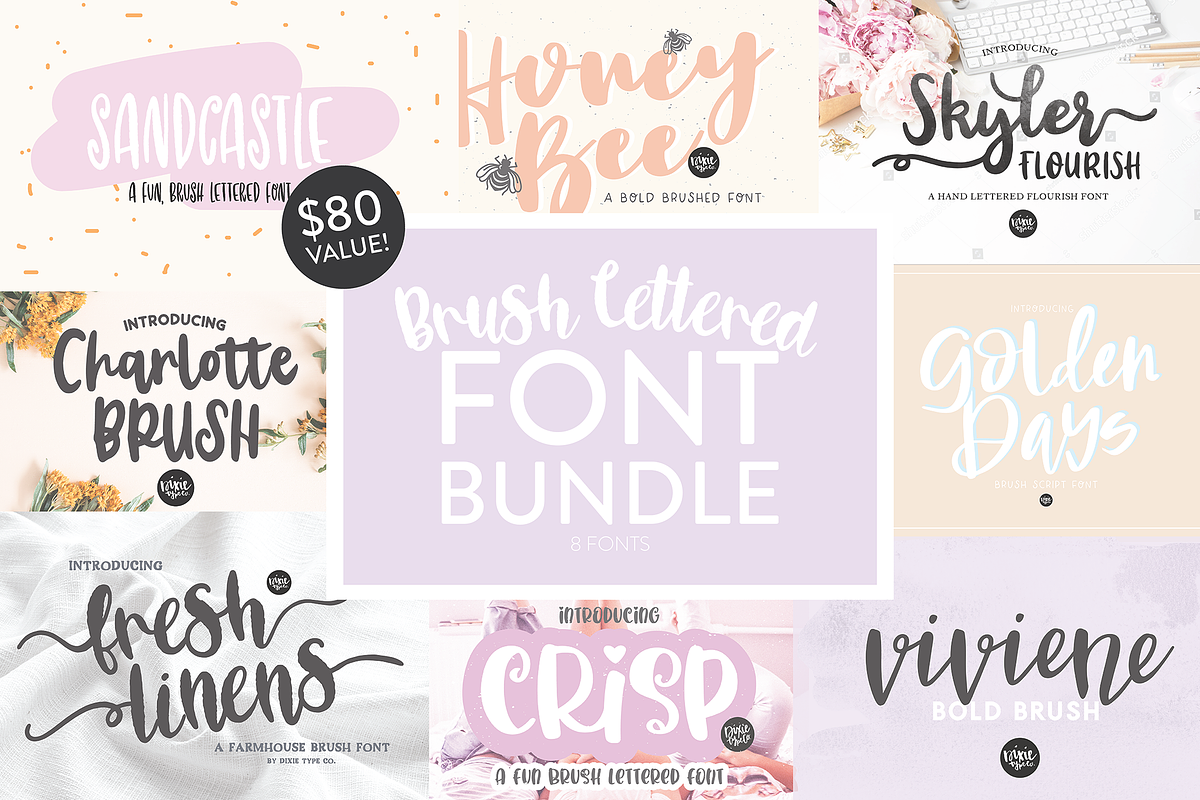
Brush Lettered Font Bundle Free Download is a versatile collection of hand-brushed typefaces that bring energy, texture, and personality to your designs. Featuring a variety of styles—from bold and expressive to soft and elegant—this bundle is perfect for everything from branding and packaging to social media posts, greeting cards, and creative print work. Each font in the set offers unique brush strokes, giving your text a dynamic, handcrafted feel.
Whether you're designing a logo, creating eye-catching merch, or crafting custom quotes, this bundle has the right font to elevate your visuals. The textured brush detailing adds authenticity and makes every letter pop with artistic flair.